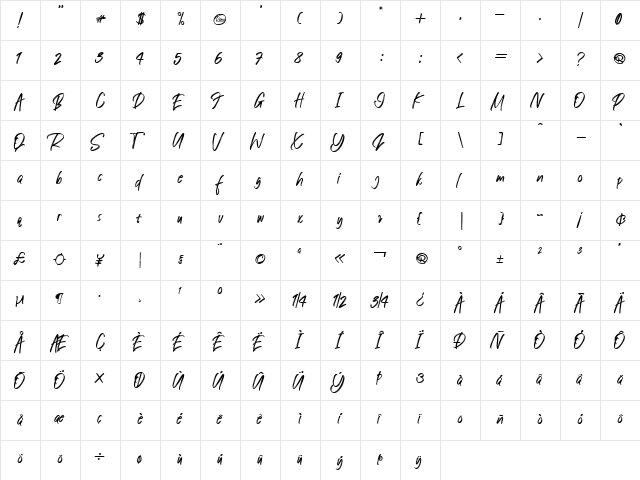
Black Eagle Regular
| Foundry | Creativework69 Studio |
| Designer | Daddi Daryawan |
Design Context for Black Eagle Typeface
Black Eagle is a composed and adaptable typeface that performs quietly and consistently across a wide range of design contexts.